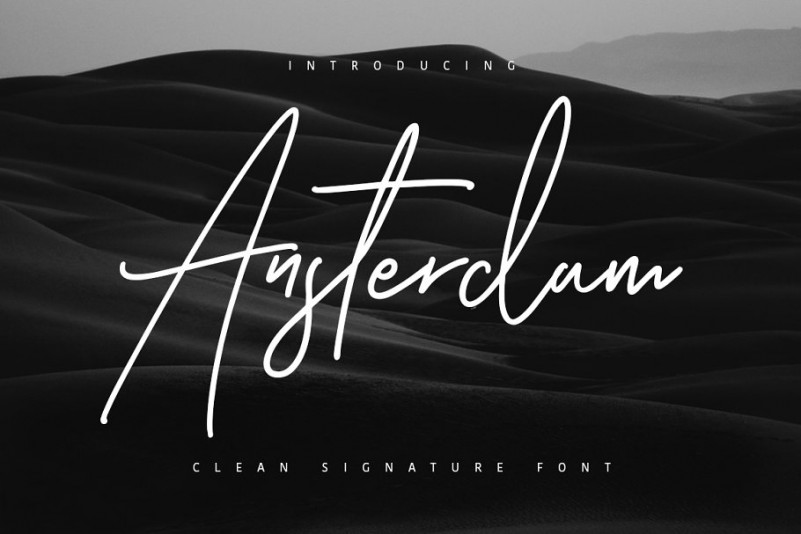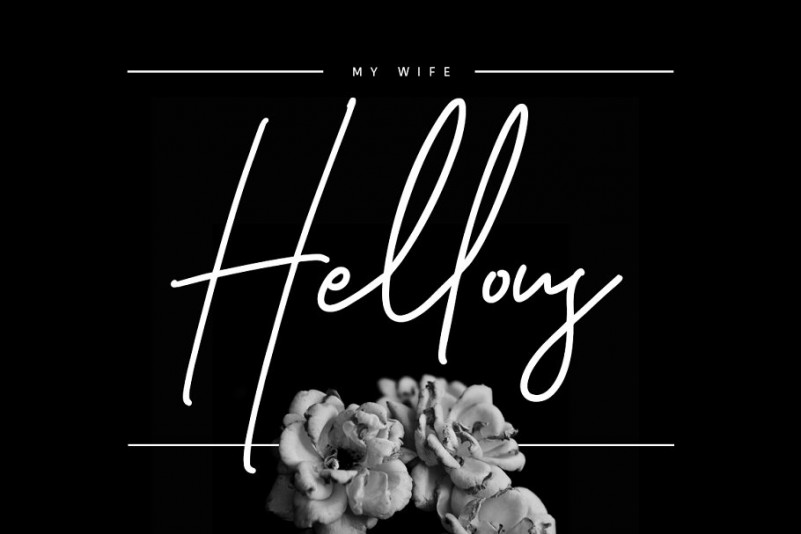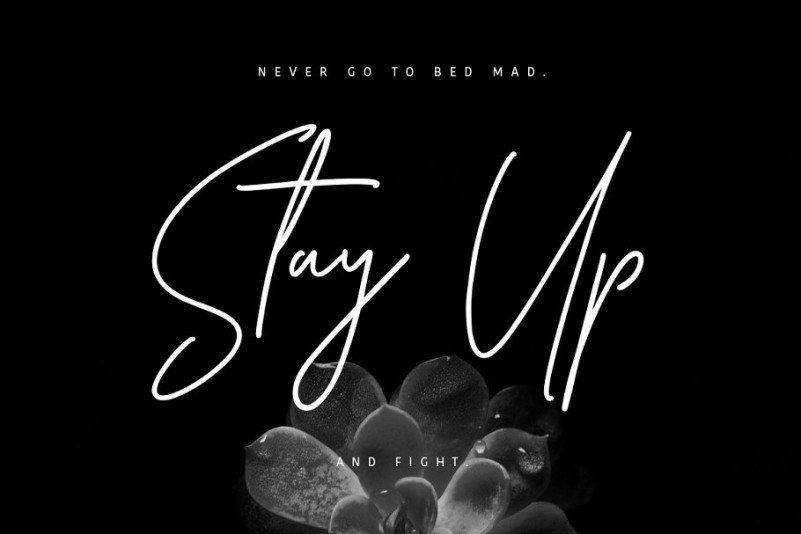
Ansterdam Font
Give your designs an authentic handcrafted feel. “Ansterdam” is perfectly suited to signature, stationery, logo, typography quotes, magazine or book cover, website header, clothing, branding, packaging design and more. Included Stylistic Alternates.